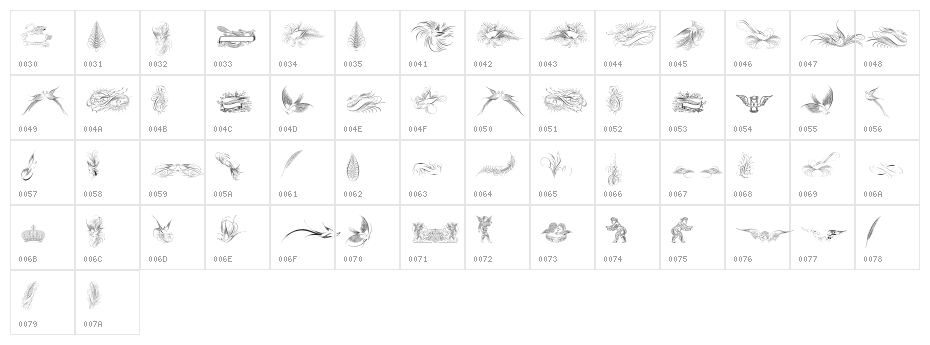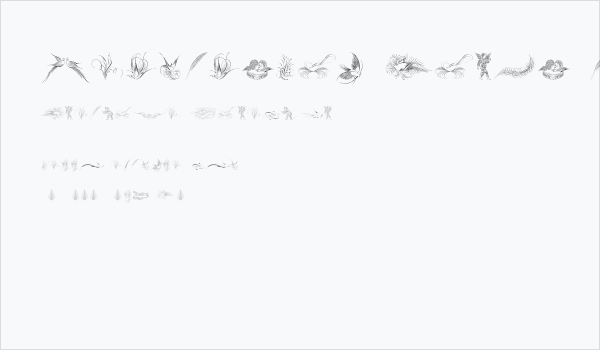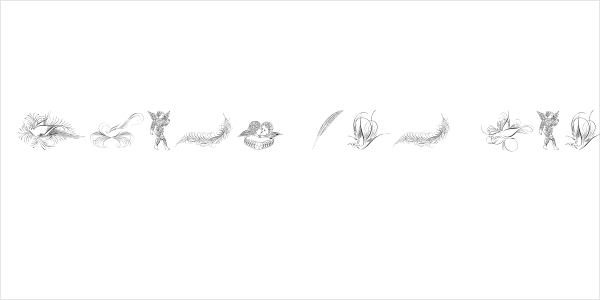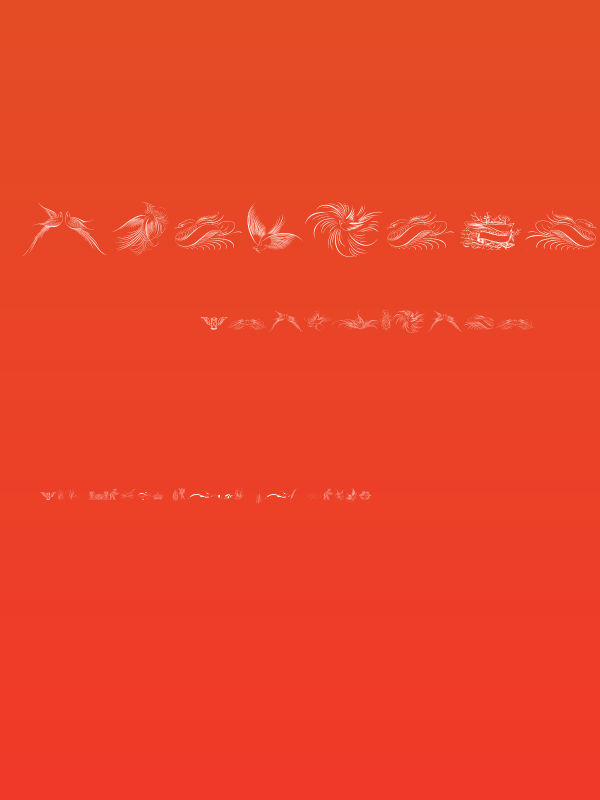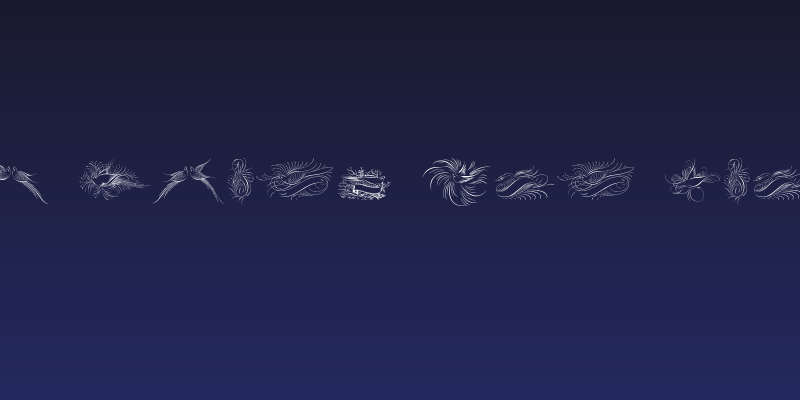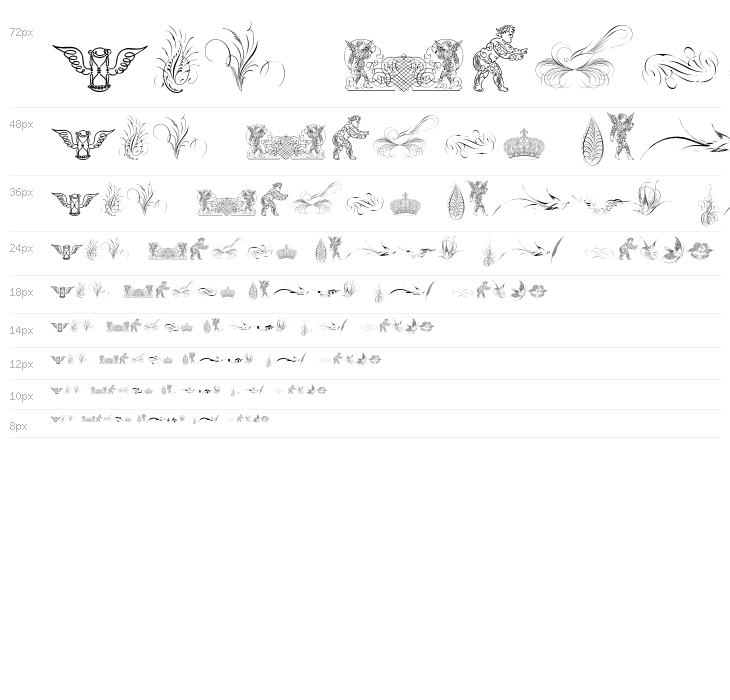
Penmanship Birds and Ornaments Free Font
Penmanship Birds and Ornaments Free Description
This collection features an array of intricate penmanship designs, incorporating birds and ornamental elements. Each character is a unique piece of art, showcasing detailed line work and elegant curves. The designs are reminiscent of vintage calligraphy, with a focus on nature-inspired motifs such as feathers, leaves, and birds. The ornamental style is highly decorative, making it suitable for projects that require a touch of elegance and sophistication. The overall aesthetic is both classic and artistic, with a timeless appeal.
Overall StyleVintage
Use CaseDecorative art, Invitations, Cards
Proposed ProjectsIdeal for wedding invitations, greeting cards, book covers, and decorative art projects.